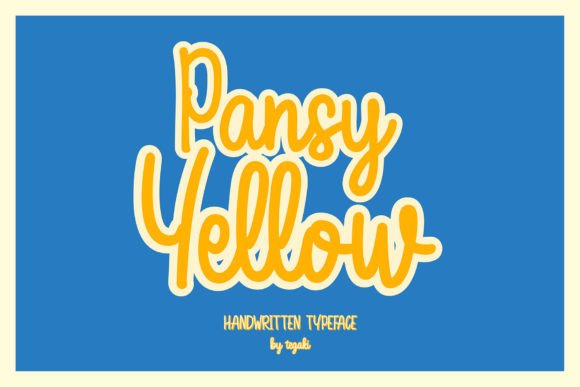
Dive into the realm of sophistication and elegance with our Pansy Yellow font, a captivating creation from the visionary artist, Tegaki. This contemporary script font gracefully blends modern aesthetics with the allure of handcrafted artistry, elevating your designs to remarkable heights.
Experience the versatility of Pansy Yellow, meticulously crafted with three distinctive styles to cater to your every creative whim. The regular style exudes a timeless charm, its smooth strokes reminiscent of exquisite calligraphy, adding a touch of refinement to wedding invitations, branding projects, and social media graphics.
For those yearning for added depth and dimension, the extrude style awaits. Each character takes on a captivating three-dimensional form, leaping off the page to create a mesmerizing visual impact. Unleash this style's magic in logos, headlines, and display designs, ensuring that your messages resonate with lasting impact.
Embrace the artistic flair of the outline style, where delicate lines intertwine to form intricate silhouettes. This style captivates with its striking presence, making it an extraordinary choice for posters, book covers, and projects yearning for a touch of intrigue.
Let Pansy Yellow's versatility inspire your creativity. Its effortless elegance elevates modern logos, while its delicate charm adds a personal touch to wedding invitations. Be it sleek branding projects or captivating social media graphics, this font seamlessly adapts, leaving a trail of beauty in its wake.
Unleash the power of Pansy Yellow, a font crafted to make your designs shine. Explore its styles, let your imagination soar, and witness the birth of masterpieces that captivate and inspire.